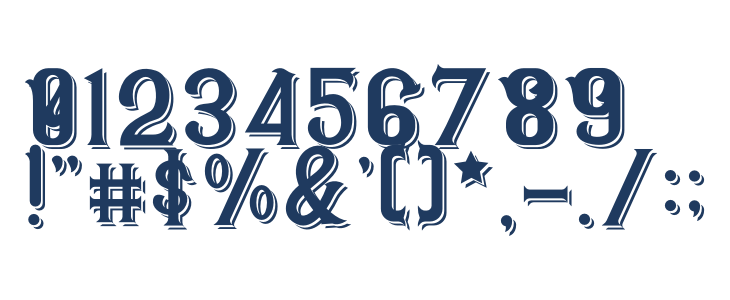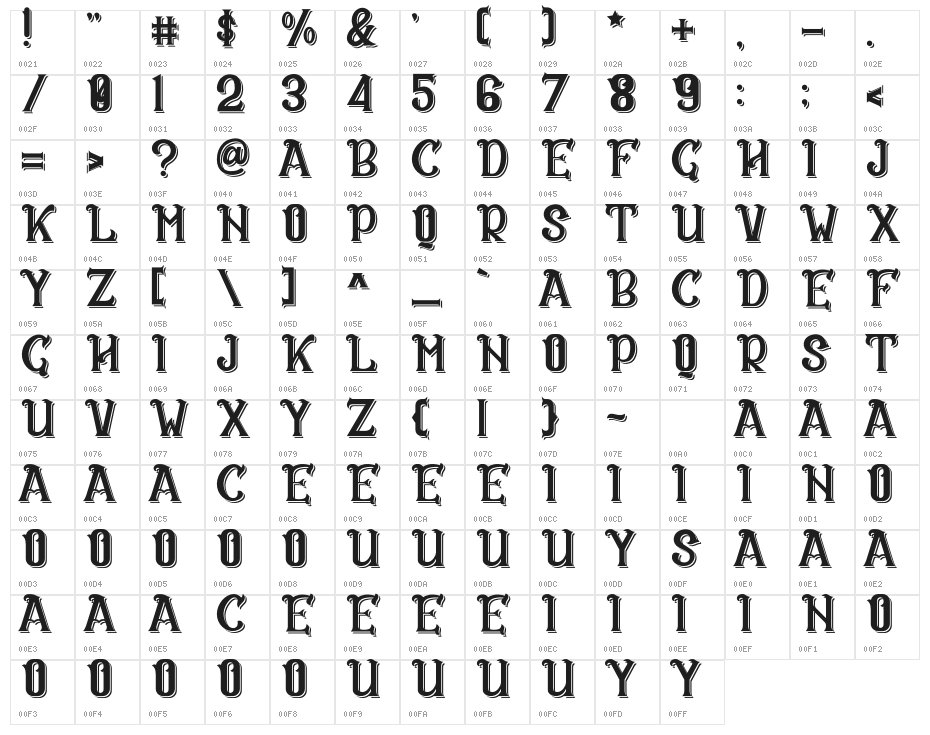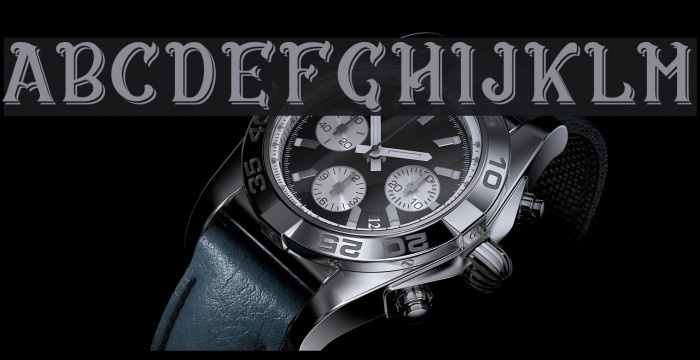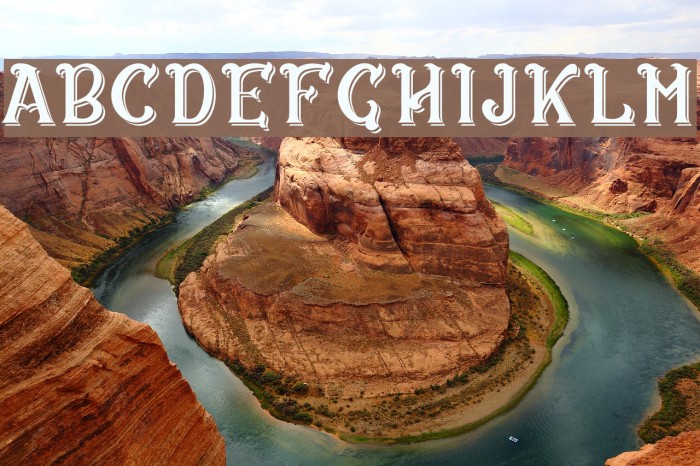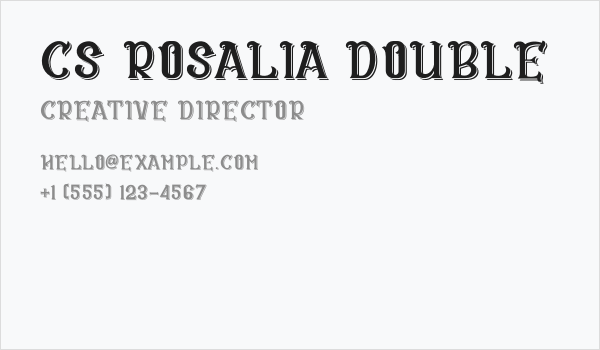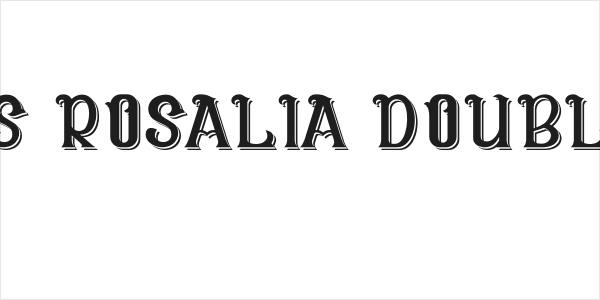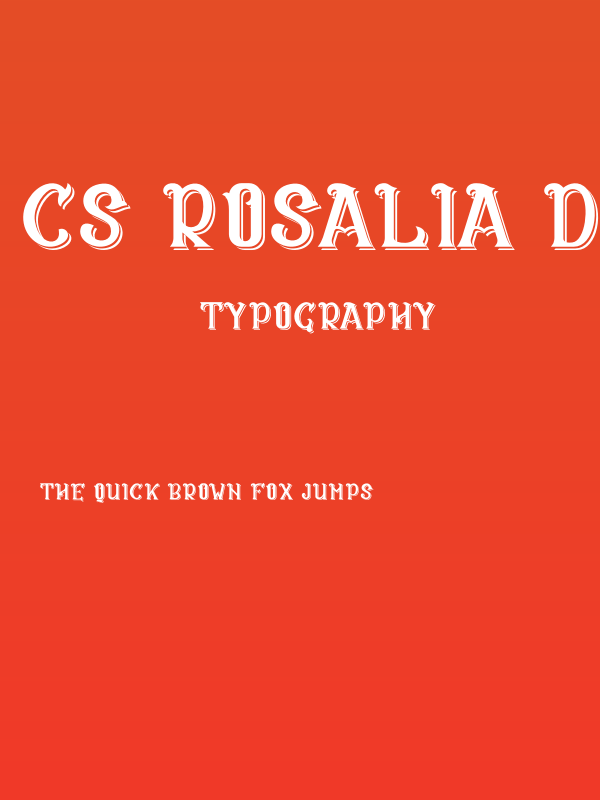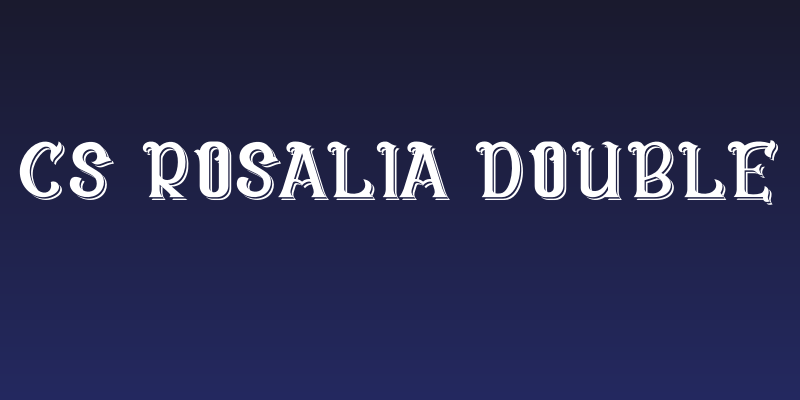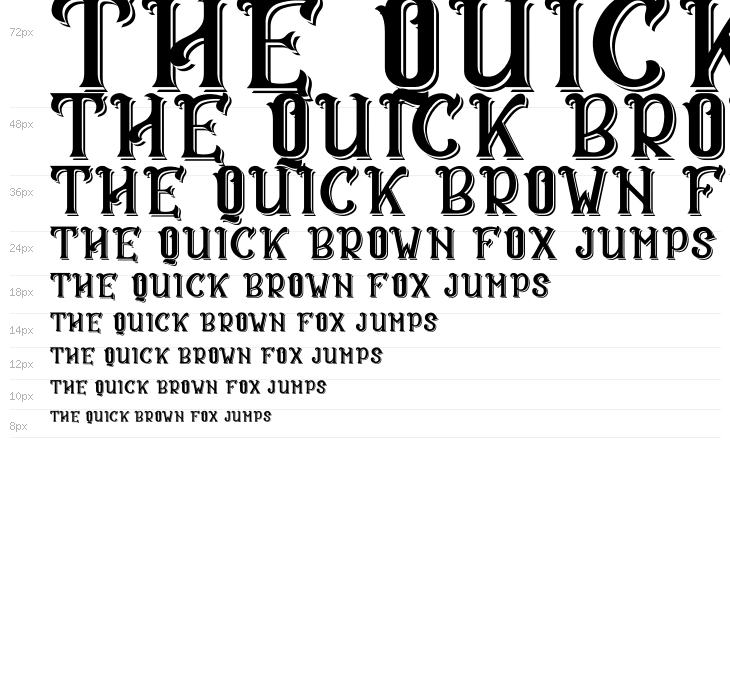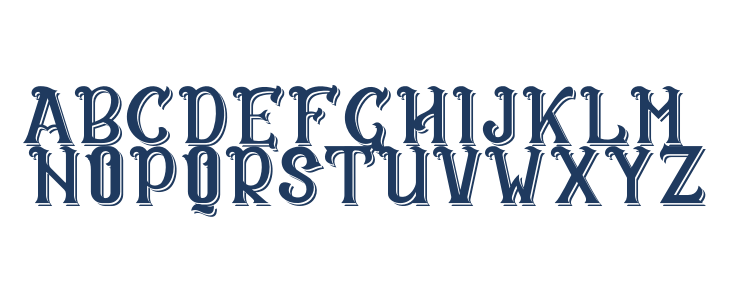
CS Rosalia Double Font
CS Rosalia Double Description
This font features a bold and decorative style with intricate detailing that gives it a vintage and ornate appearance. The characters are designed with a double-line effect, adding depth and a shadow-like quality. The uppercase letters are particularly striking, with sharp serifs and a strong presence. The numbers and special characters maintain the same decorative flair, making them suitable for eye-catching designs. The overall style is reminiscent of old-fashioned signage or posters, with a touch of elegance and sophistication.
| Overall Style | Vintage, Decorative |
| Proposed Projects | Ideal for vintage-themed posters, signage, branding, and decorative invitations. |